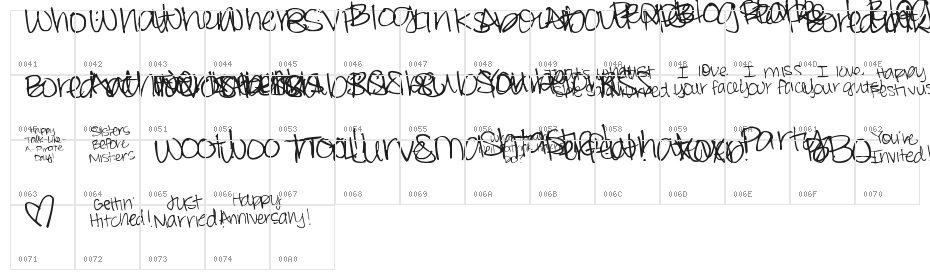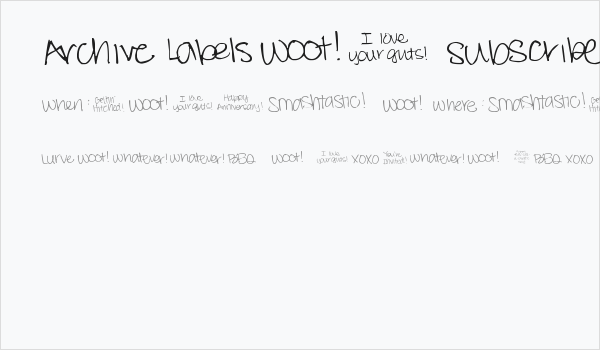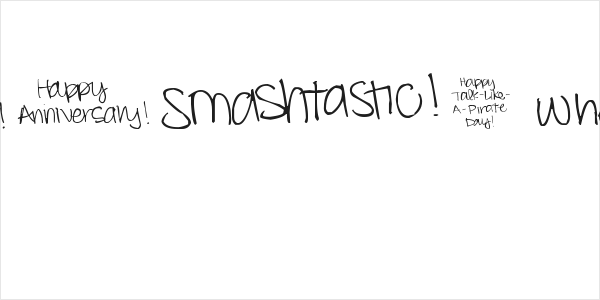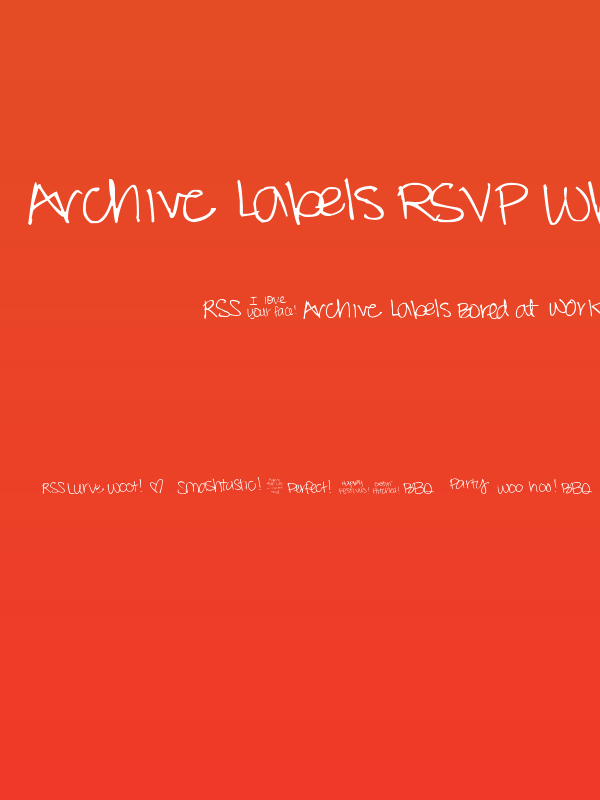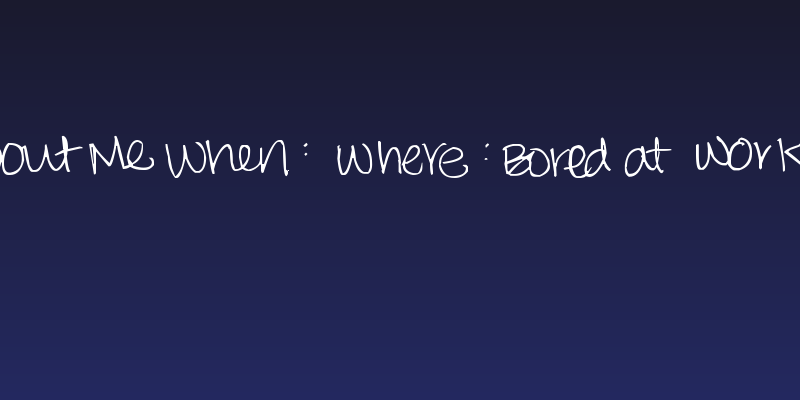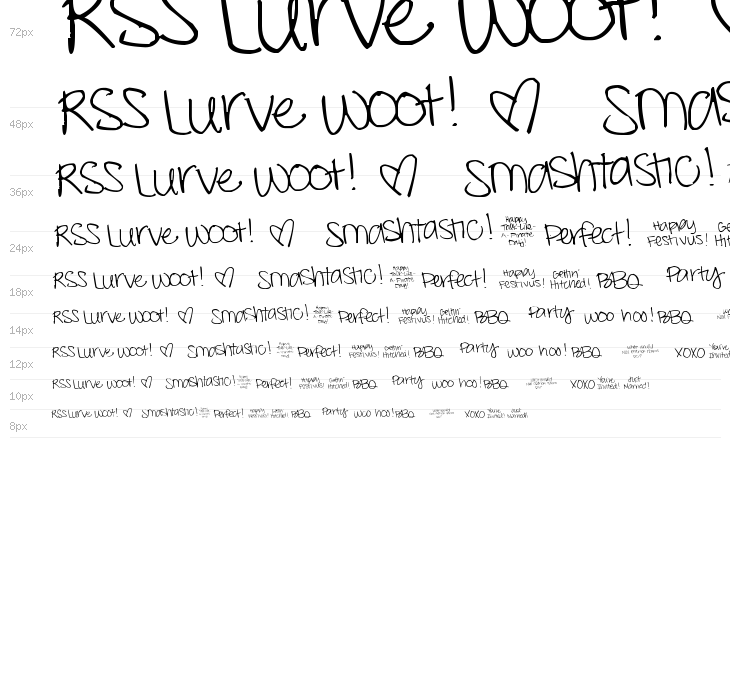
Pea Smashtastic Doodles Again Font
Pea Smashtastic Doodles Again Description
This playful and whimsical font features a handwritten style with a casual and friendly appearance. The characters are slightly irregular, adding a personal touch that mimics natural handwriting. The strokes are smooth and flowing, with a moderate variation in thickness that gives the font a lively and dynamic feel. The overall design is informal and approachable, making it ideal for projects that require a personal or creative touch. The font includes a full set of uppercase and lowercase letters, numbers, and a variety of special characters, allowing for versatile use in different contexts.
| Use Case | Invitations, Greeting cards, Personal blogs |
| Proposed Projects | Ideal for invitations, greeting cards, personal blogs, and creative projects that require a personal touch. |